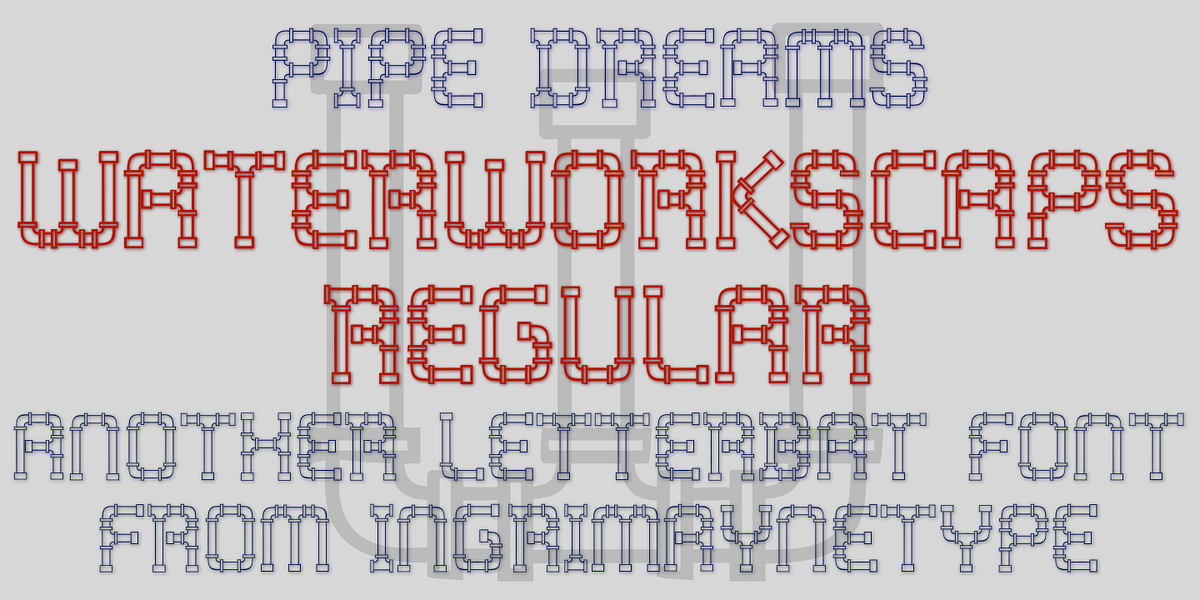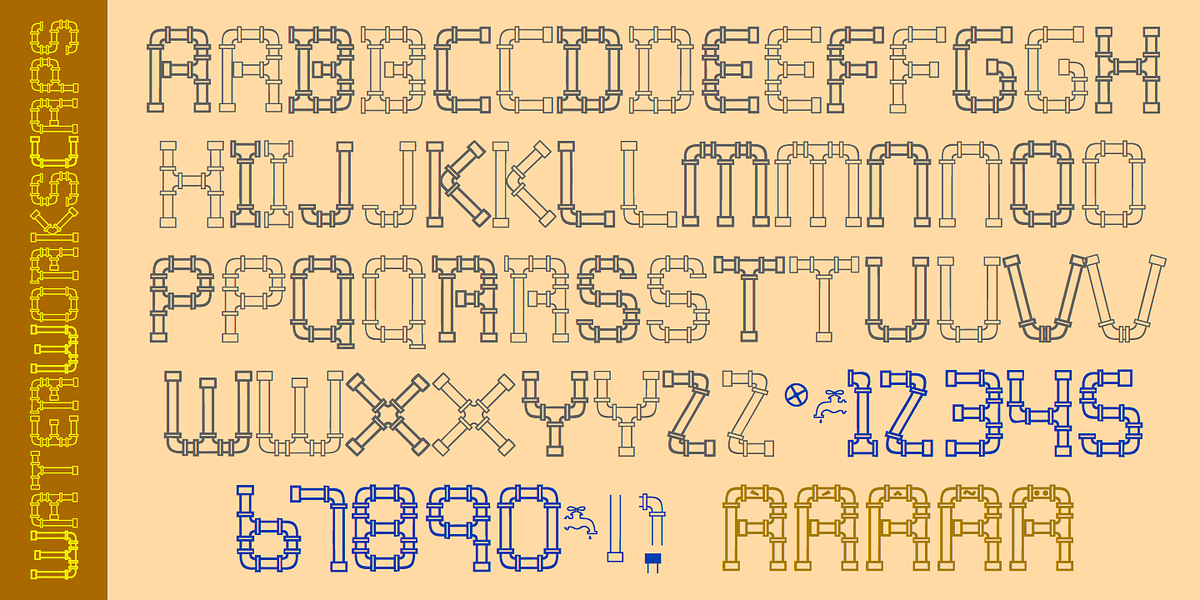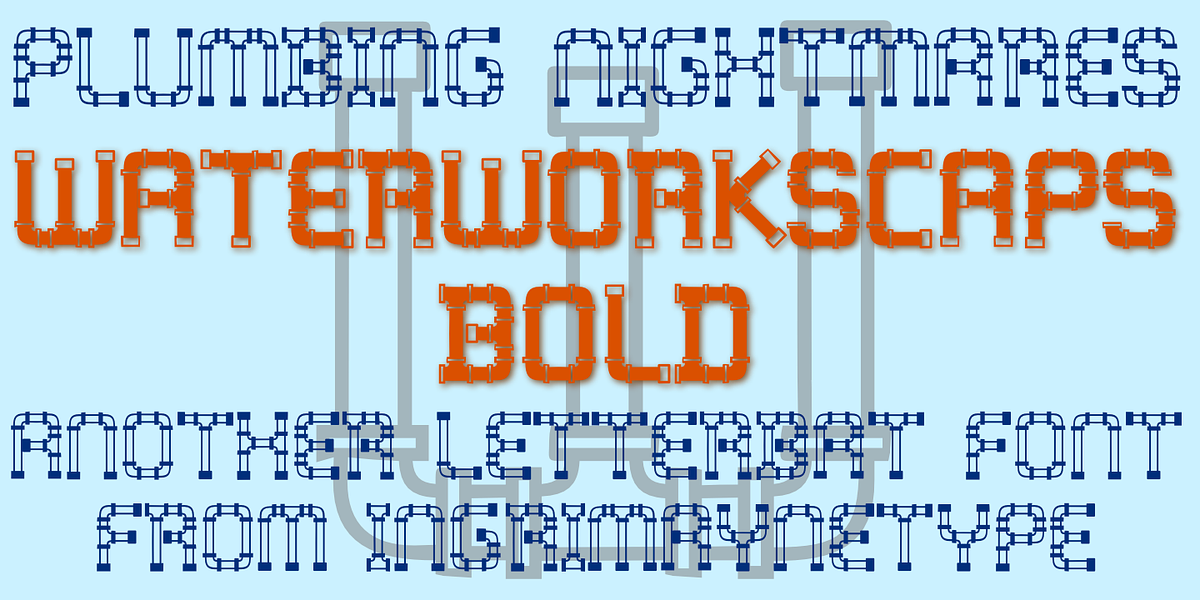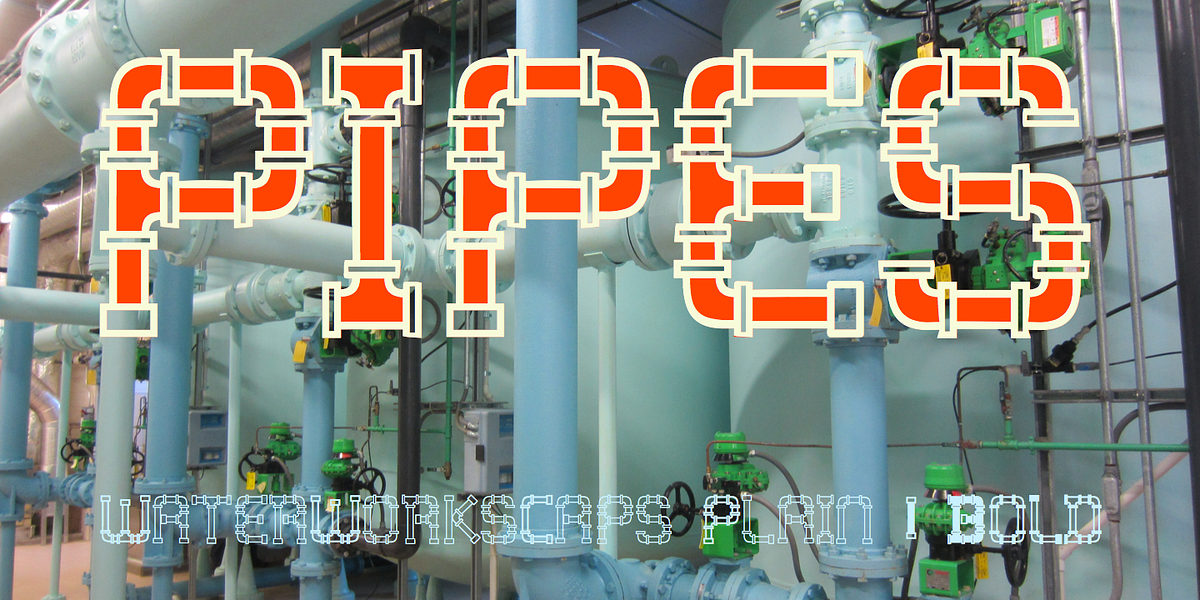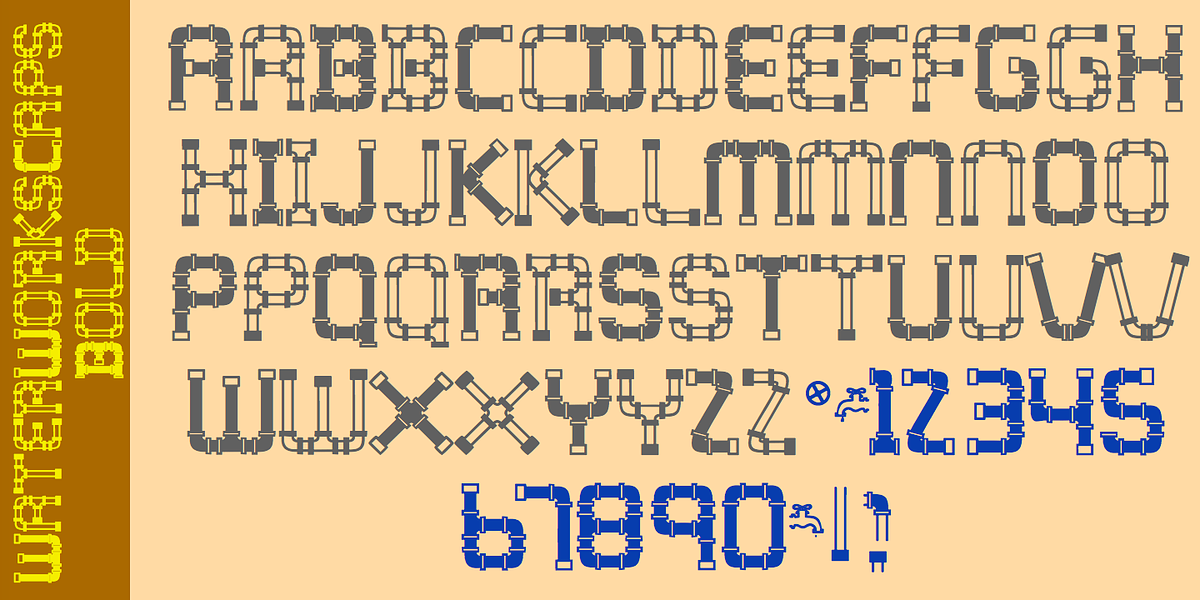
WaterWorksCaps
WaterWorks is a dingbat font where each letter is creatively designed using pipe shapes. Its origin stems from a specialized font intended for constructing mazes, suggesting its potential use in playful graphic design projects and game development.